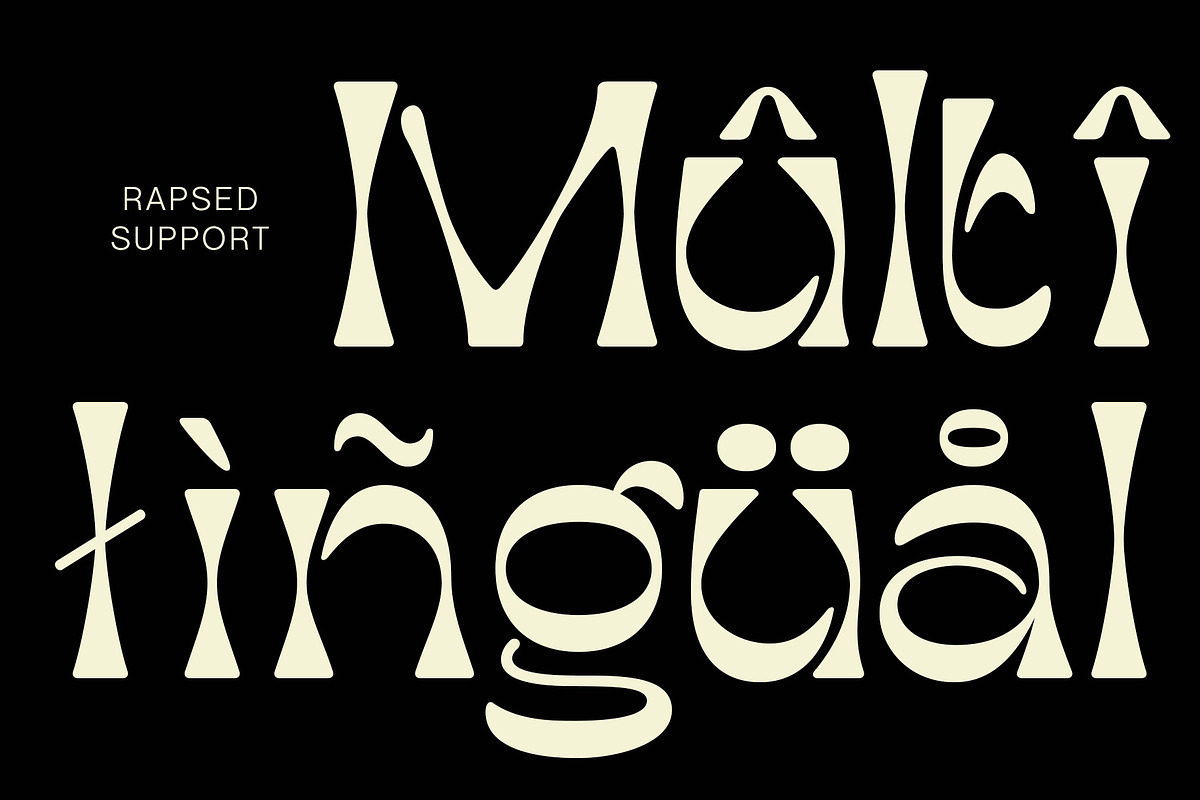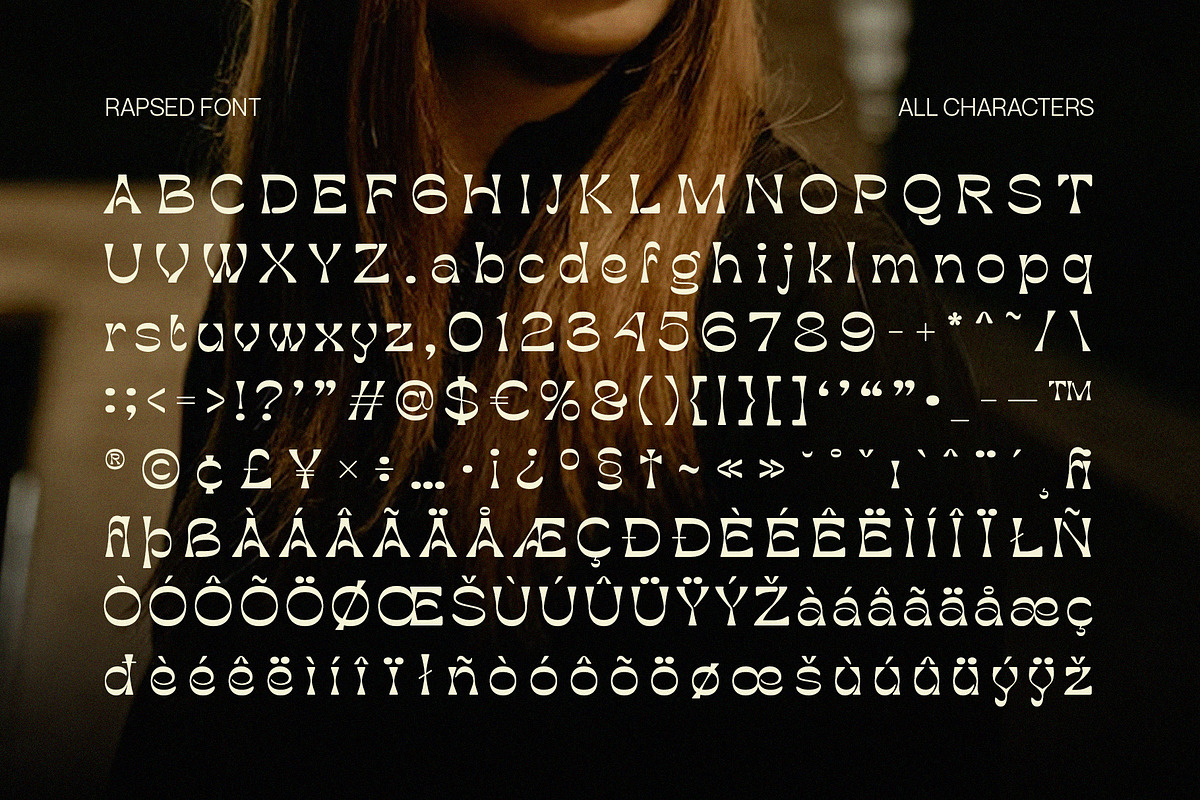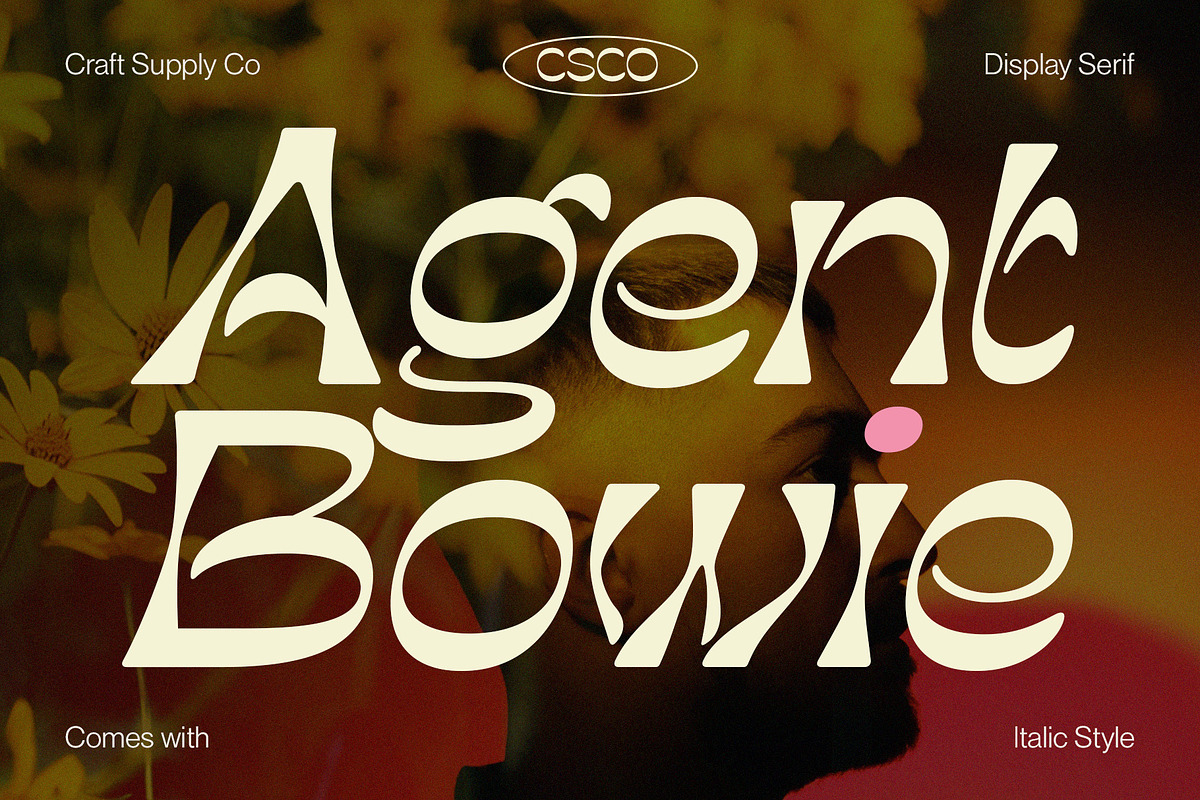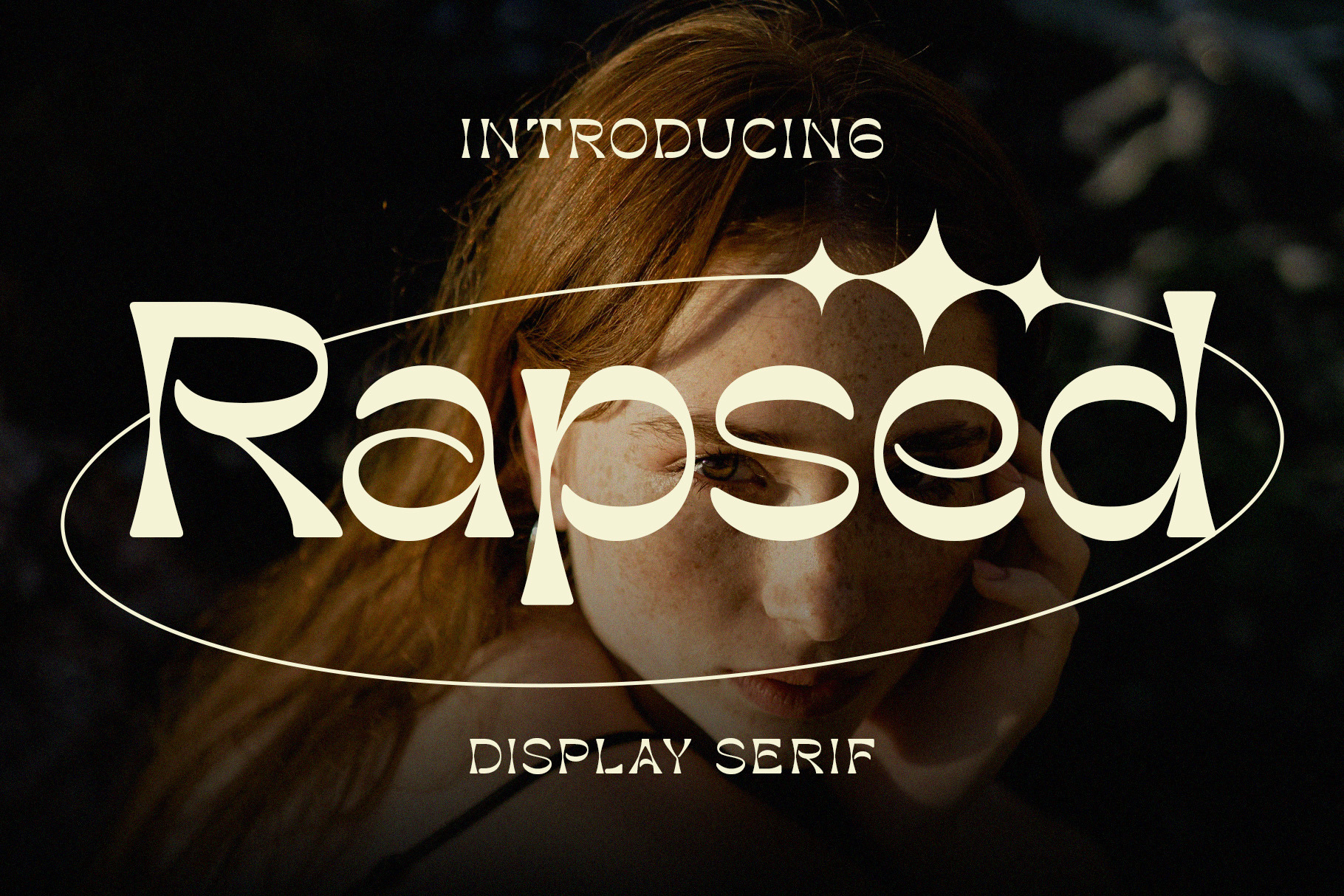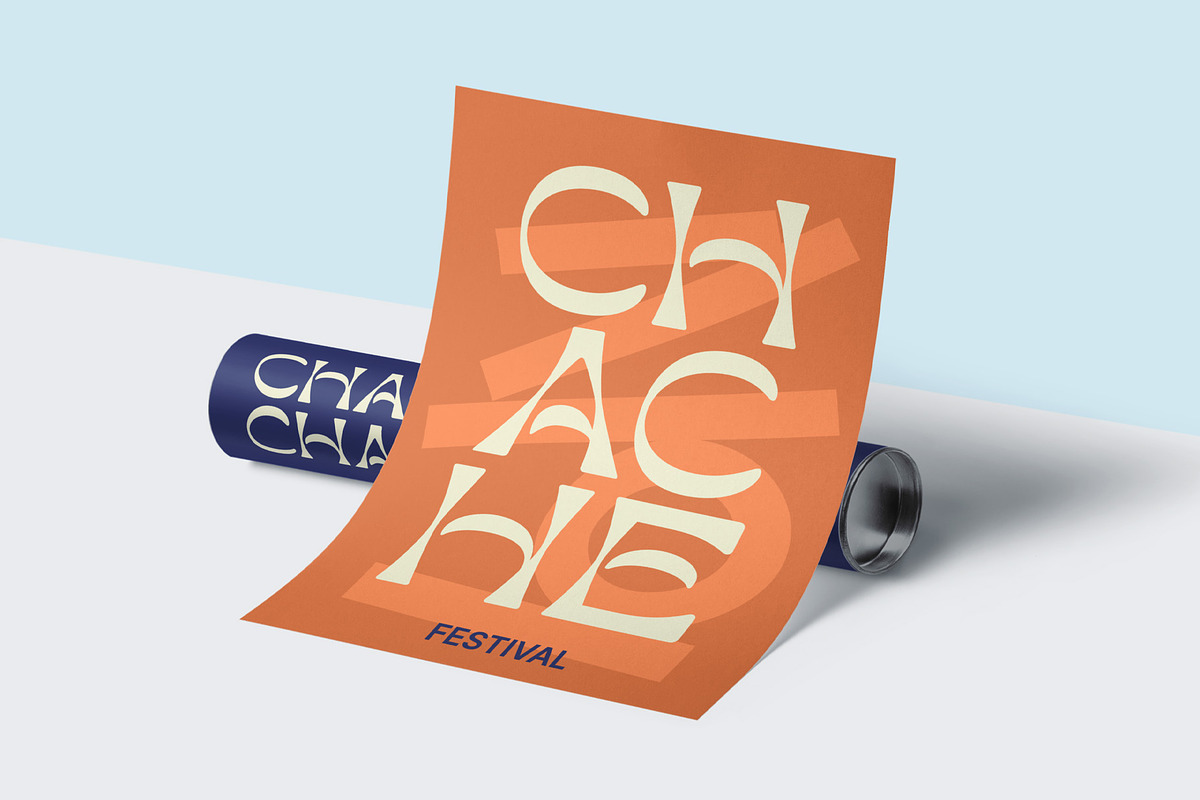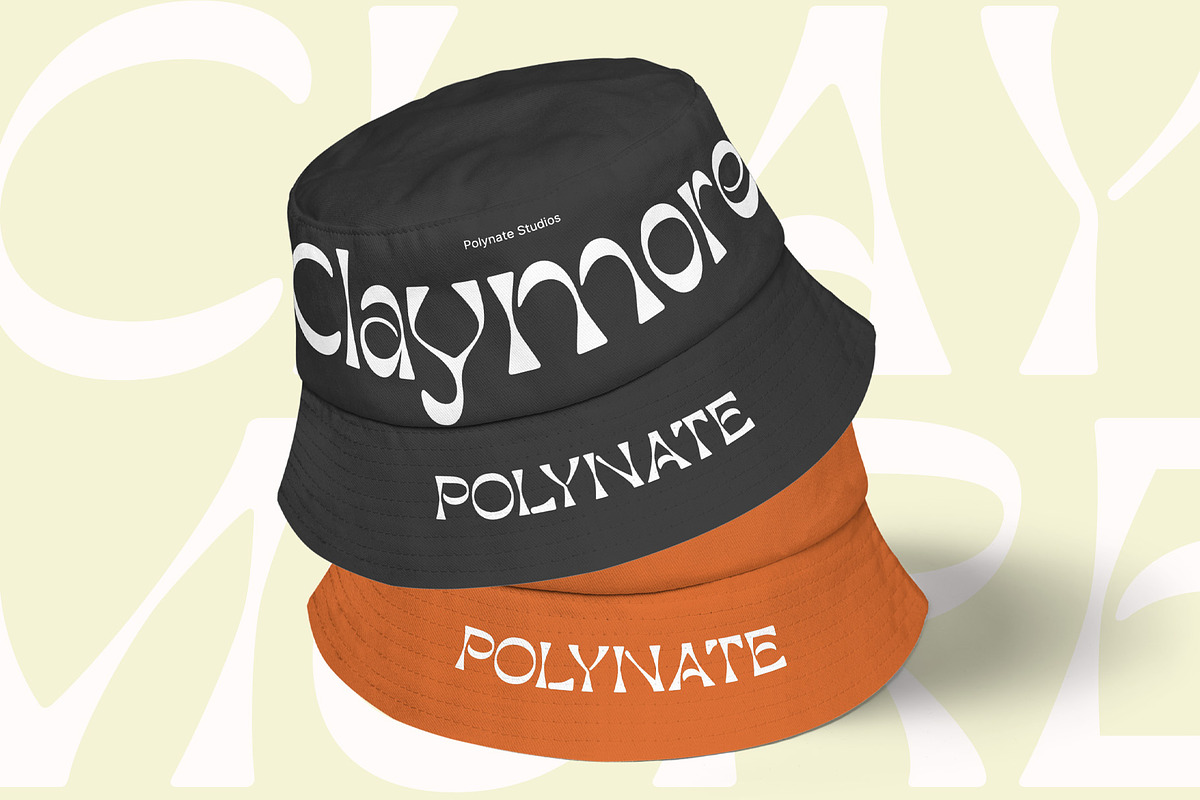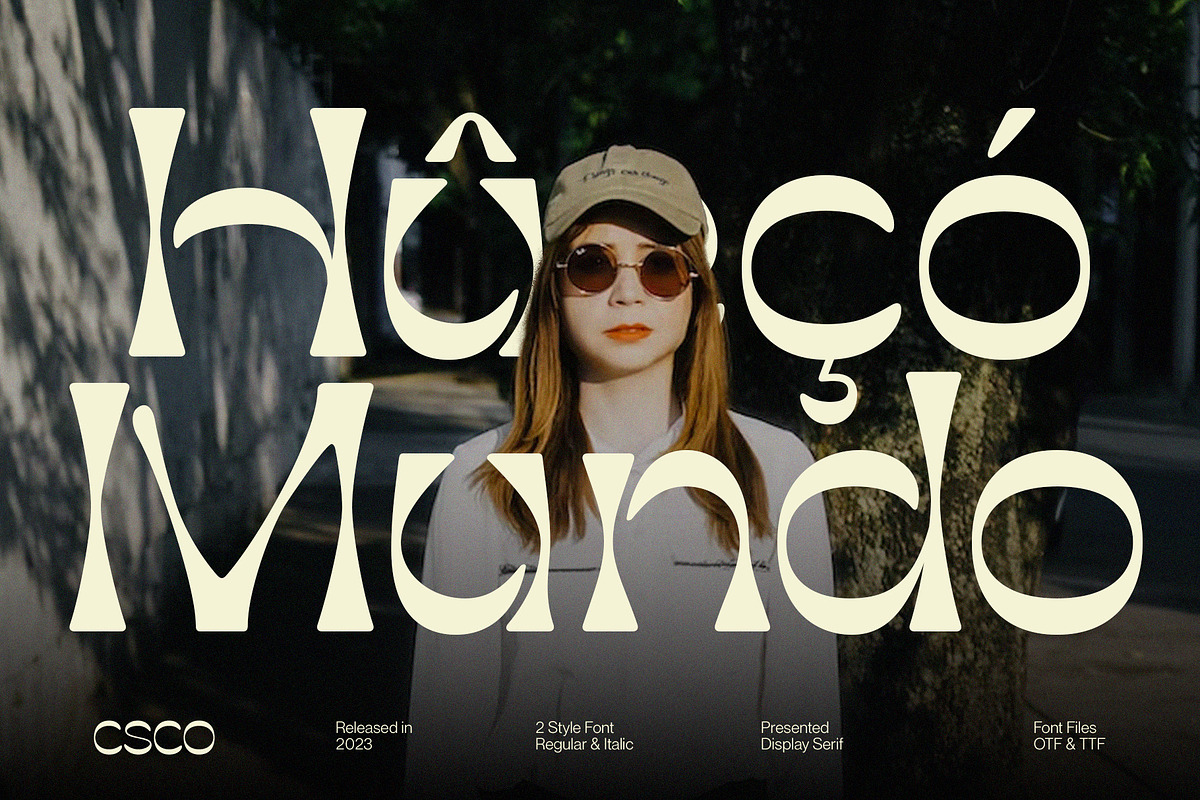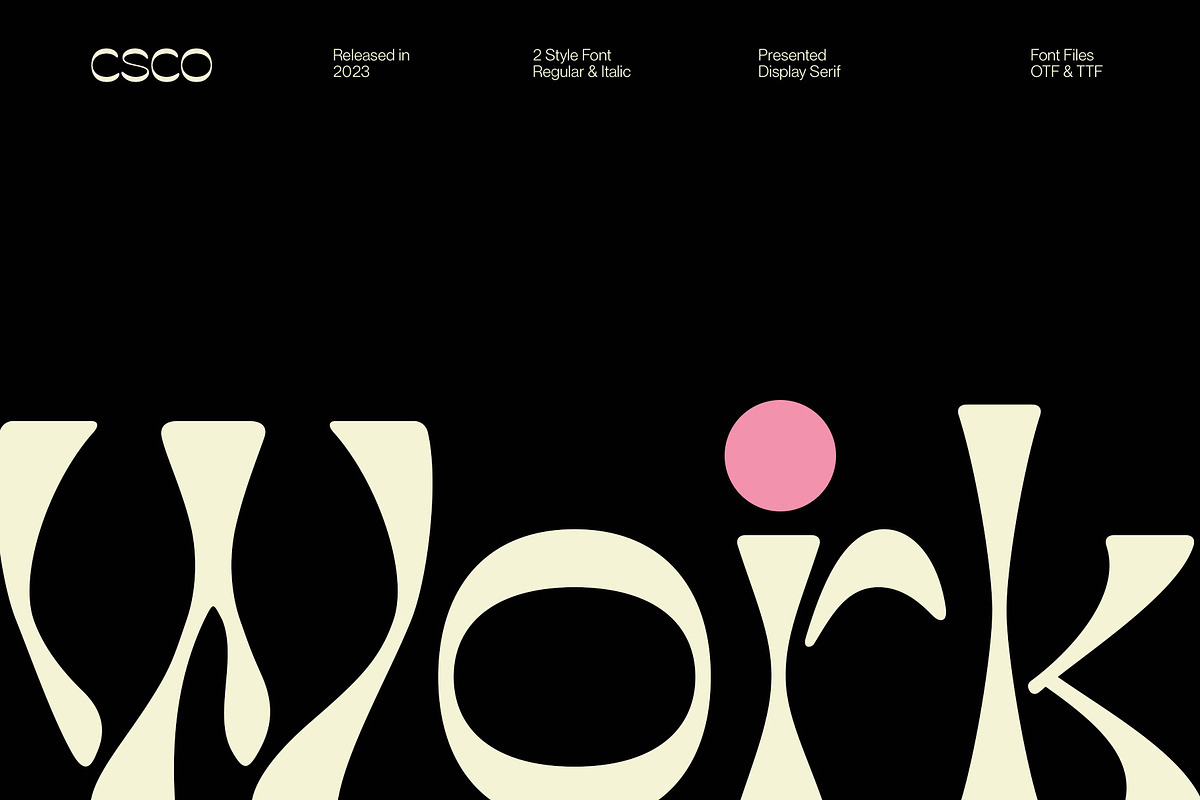
Rapsed - Display Typeface
Rapsed - Display Serif Font is a captivating work of typographic art that seamlessly merges the timeless grace of serifs with the contemporary edge of stencil-inspired elements and bold reversed contrast. It's not just a font; it's a visual narrative that demands attention and ignites curiosity.
Imagine Rapsed as a rebellious poet among typefaces, infusing its letters with intrigue and a touch of avant-garde flair. Its unique stencil-inspired accents carve out an element of surprise, while the reversed contrast adds a modern twist. Choosing Rapsed is not merely a design decision; it's a creative manifesto—an invitation to explore the uncharted territories of expressive typography.
Visualize Rapsed on your posters, headlines, or branding materials. It's the font that guarantees your message becomes a visual masterpiece, one that captures the essence of tradition and innovation in a harmonious dance. Rapsed is your creative accomplice, beckoning you to join the avant-garde and make a lasting impression that leaves audiences both intrigued and inspired.
- Rapsed Regular
- Rapsed Italic